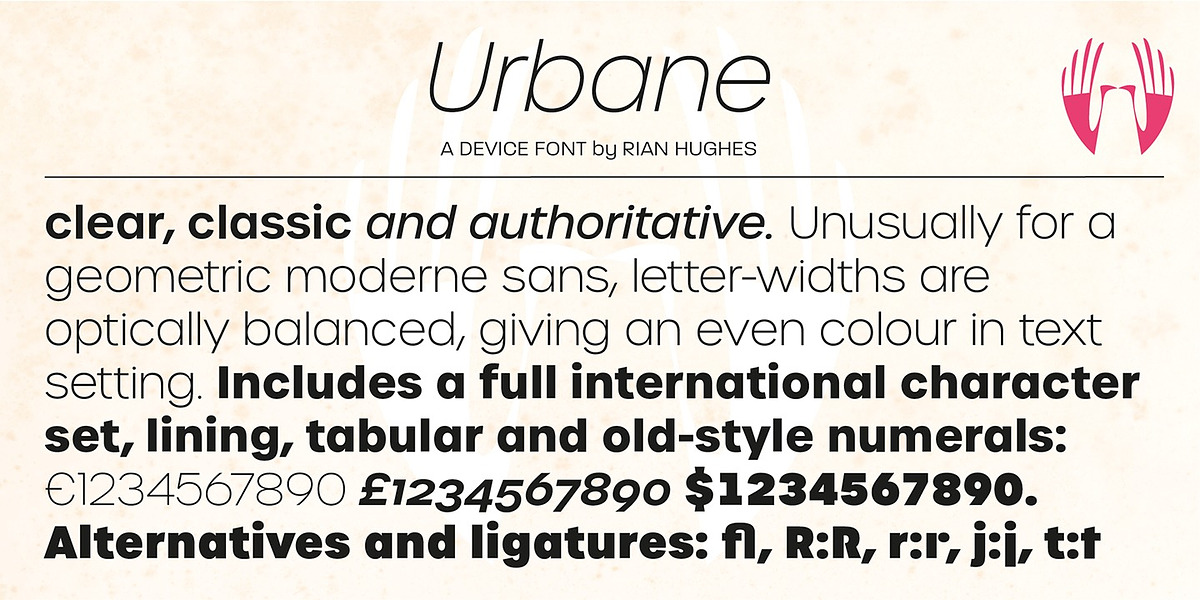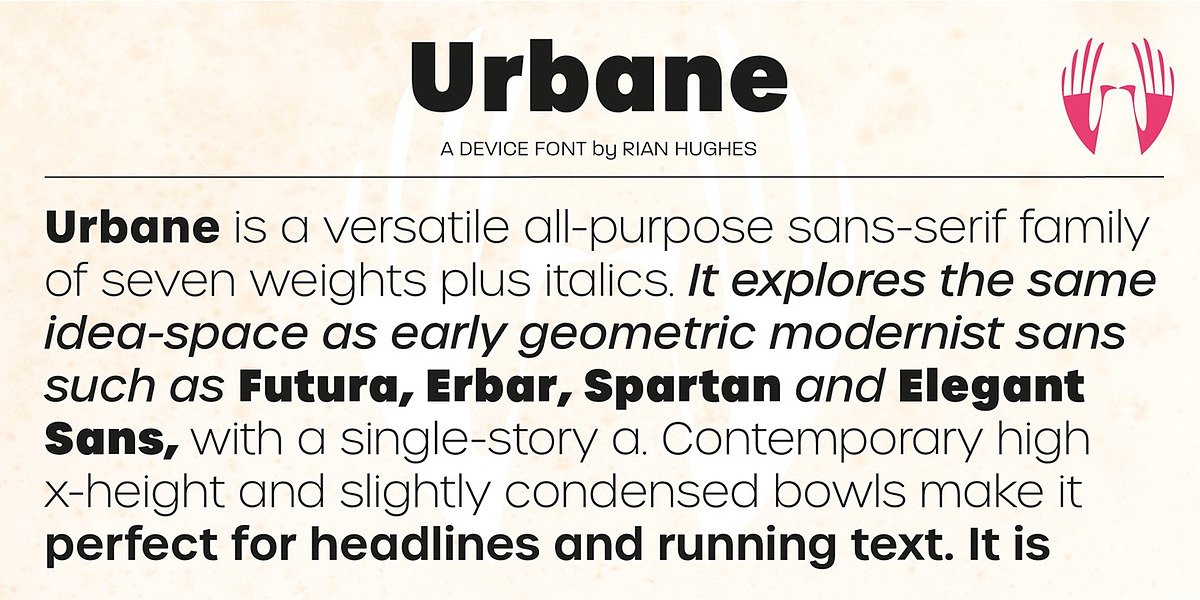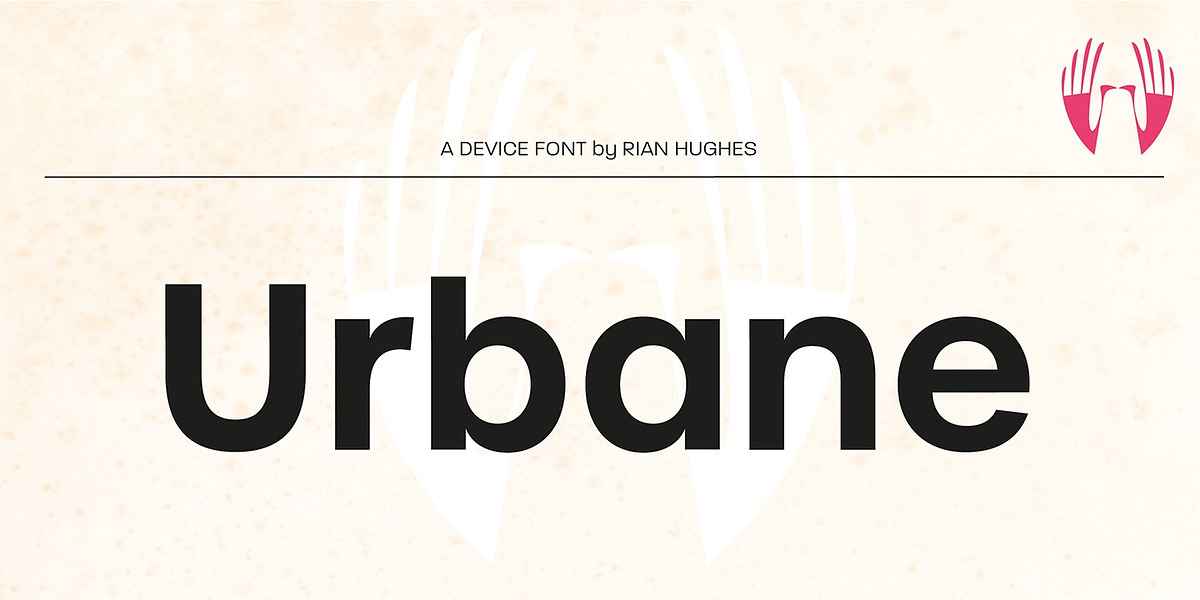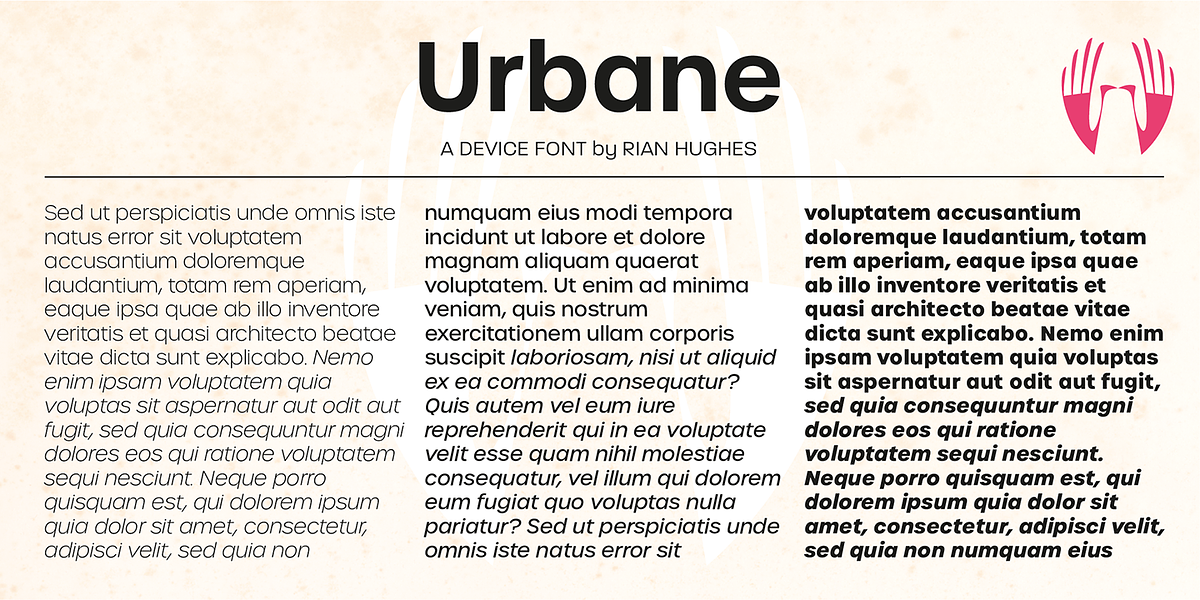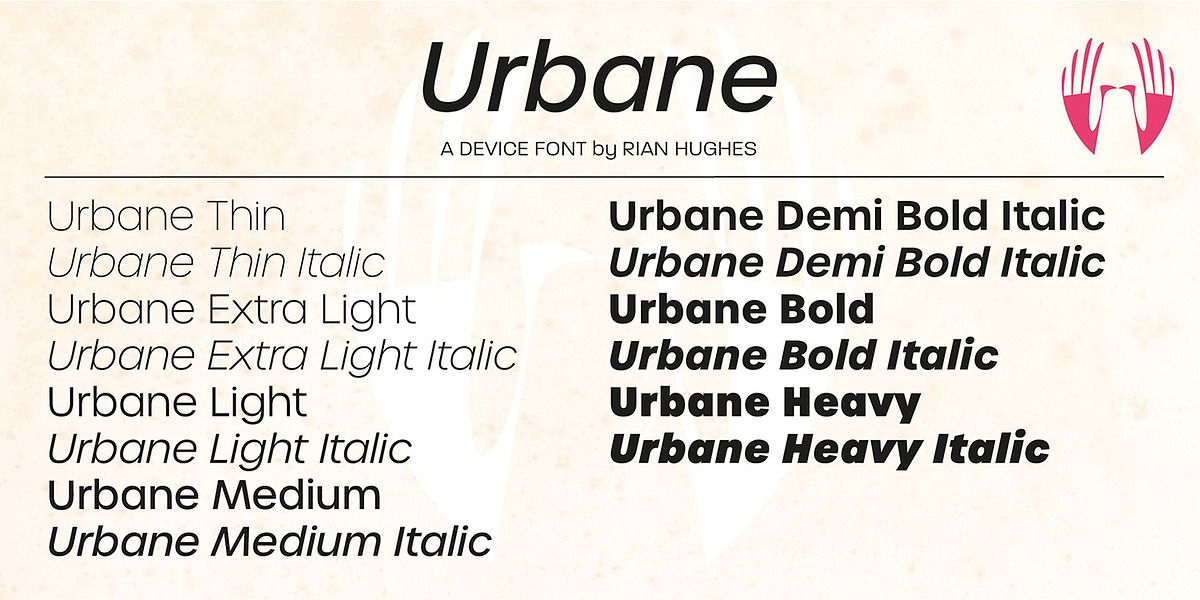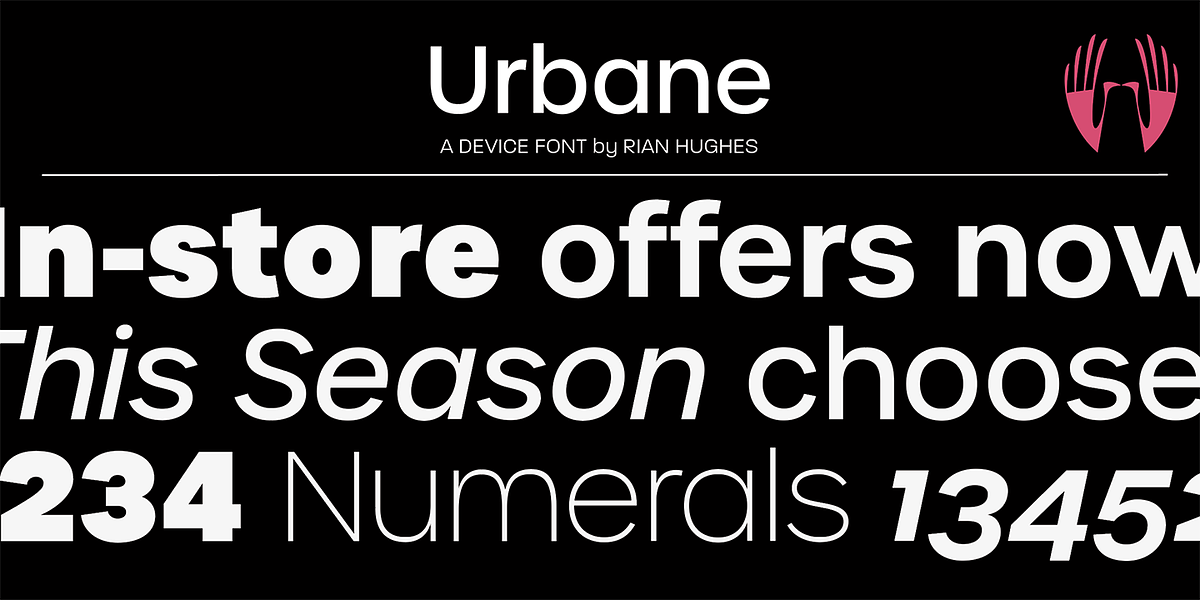
Urbane
Urbane is a geometric sans-serif font family inspired by early modernist sans-serifs like Futura and Erbar. It features a high x-height and slightly condensed bowls. Uniquely for this style, Urbane has optically balanced letter widths for even color in setting. It includes a full international character set and supports both lining and old-style numerals.